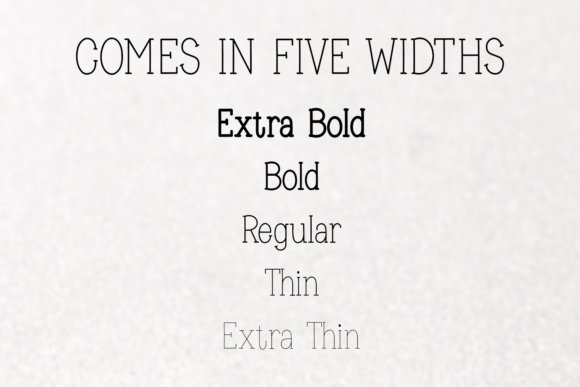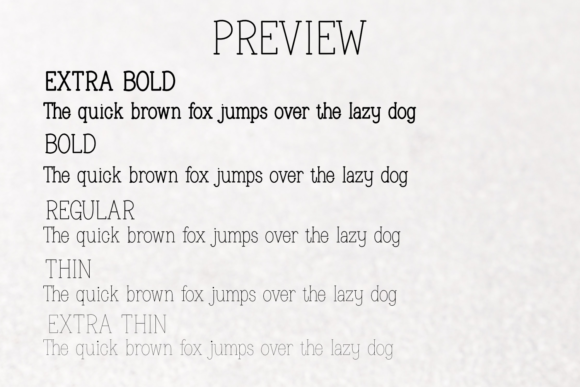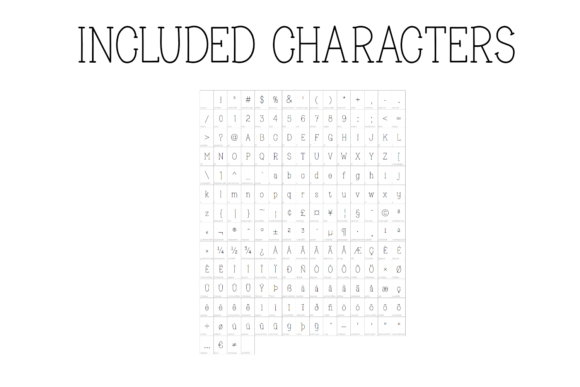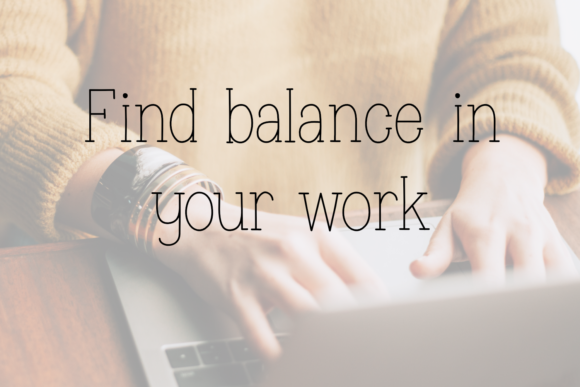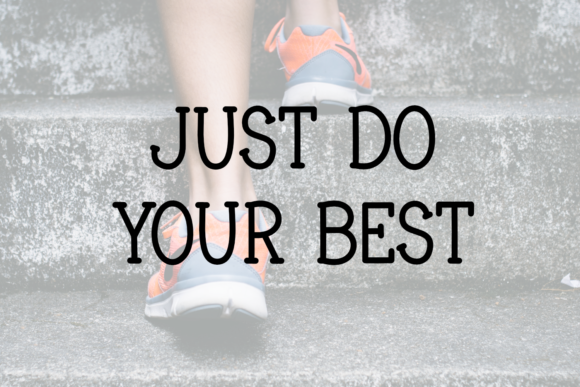
Introducing Everyday Font: The Perfect Serif Companion for Designers and Crafters
In the world of typography, finding the right font can make all the difference in elevating your design project from ordinary to extraordinary. For designers and crafters looking for a versatile and charming serif font, Everyday Font is an excellent choice. This delightful font is specifically designed to add a touch of personality to various branding projects, including logos, t-shirt printing, creative products, and more.
What Makes Everyday Font Stand Out?
Everyday Font is a cute serif font that boasts a unique charm, making it perfect for designers and crafters who want to add a personal touch to their work. Its serif design gives it a classic and timeless feel, while its playful and friendly appearance makes it suitable for a wide range of applications.
Perfect for Branding Projects
Whether you’re working on a logo design, creating custom t-shirts, or developing innovative products, Everyday Font is an excellent choice. Its clear and legible design ensures that your message is conveyed effectively, while its aesthetic appeal adds a touch of personality to your brand.
Logo Design
Everyday Font is an excellent choice for logo design, as it offers a unique combination of simplicity and charm. Its serif design gives your logo a professional and classic look, while its playful appearance makes it memorable and engaging.
T-Shirt Printing
For crafters and designers who specialize in custom t-shirt printing, Everyday Font is a great option. Its clear and legible design ensures that your message or design is easily readable, even on a variety of fabric types and colors.
Creative Products
Everyday Font is also perfect for designing creative products, such as stickers, labels, and other novelty items. Its playful and charming appearance makes it suitable for a wide range of applications, from kids’ products to home decor items.
Why Choose Everyday Font?
There are several reasons why Everyday Font stands out from other serif fonts:
- Unique charm: Everyday Font has a distinct personality that sets it apart from other serif fonts.
- Versatility: This font is suitable for a wide range of applications, from logos and t-shirt printing to creative products and more.
- Legibility: Everyday Font is clear and easy to read, making it perfect for conveying messages effectively.
- Classic and timeless: The serif design of Everyday Font gives it a classic and timeless feel that never goes out of style.
Tips for Using Everyday Font
To get the most out of Everyday Font, here are some tips to keep in mind:
- Experiment with sizes: Everyday Font looks great in a variety of sizes, from small and delicate to large and bold.
- Play with colors: This font looks great in a range of colors, from bright and bold to pastel and soft.
- Mix and match: Don’t be afraid to combine Everyday Font with other fonts to create a unique and eye-catching design.
Everyday Font is a charming serif font that is perfect for designers and crafters looking to add a personal touch to their branding projects. Its unique charm, versatility, and legibility make it an excellent choice for a wide range of applications. Whether you’re working on a logo design, custom t-shirts, or creative products, Everyday Font is sure to make your project stand out.
So why not give Everyday Font a try? With its timeless design and playful personality, it’s sure to become a favorite in your font collection.